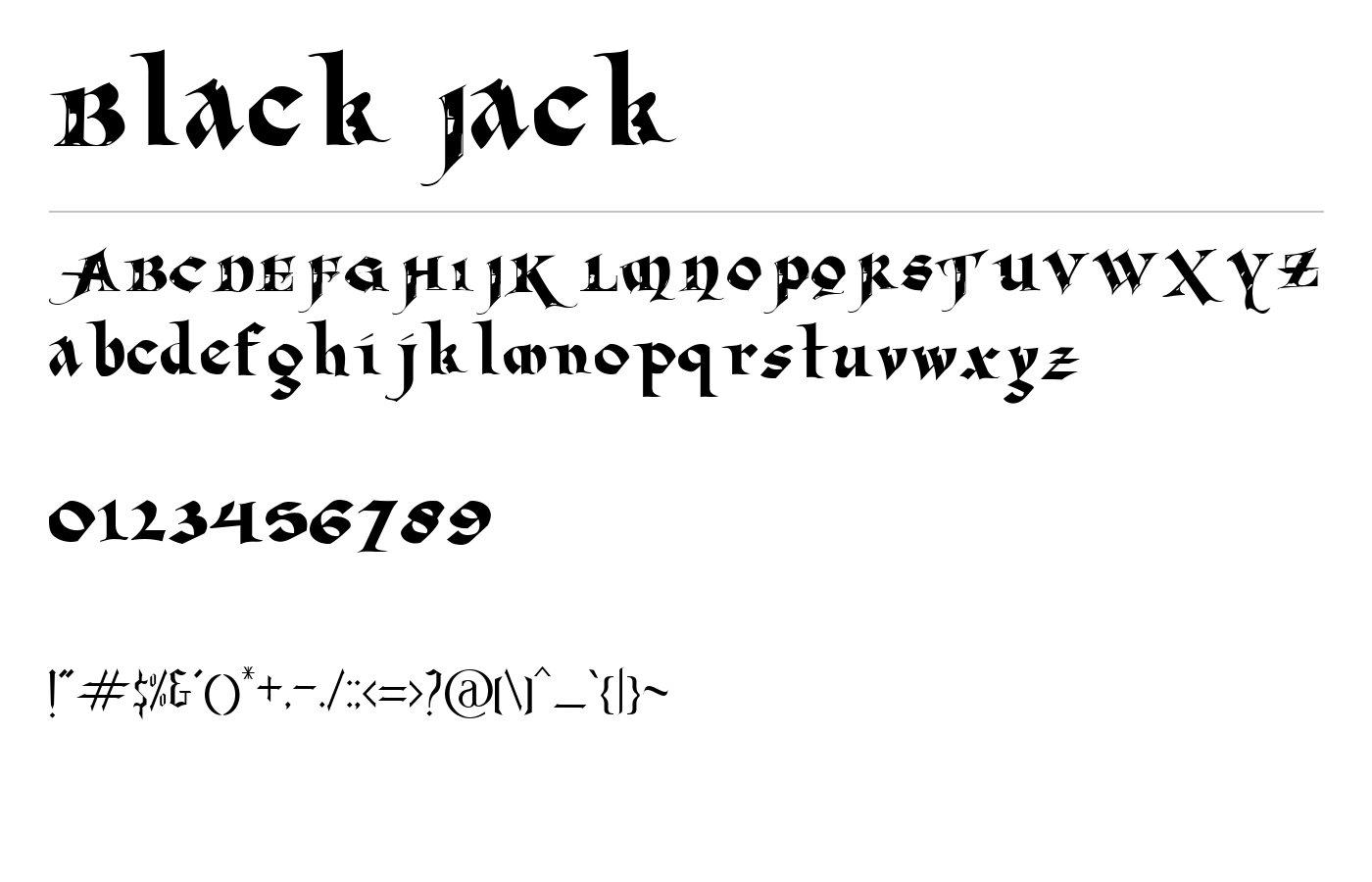
Black Jack is a distinctive blackletter-style font with bold, sharp strokes and high contrast that evoke a vintage, gothic feel. Its ornate, angular letterforms and dramatic serifs give it a strong personality suited for eye-catching headlines, logos, and branding that demand a historic or edgy atmosphere. This font works well for designs needing an old-world flair, such as posters, fashion branding, or packaging with a bold, artistic touch.
Black Jack Font
About Black Jack Font